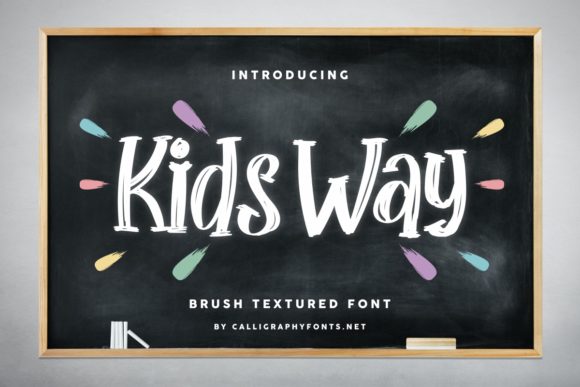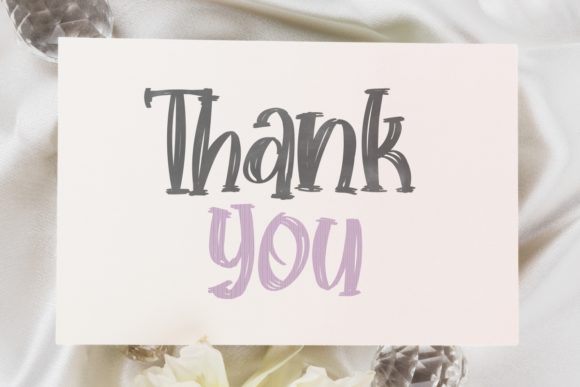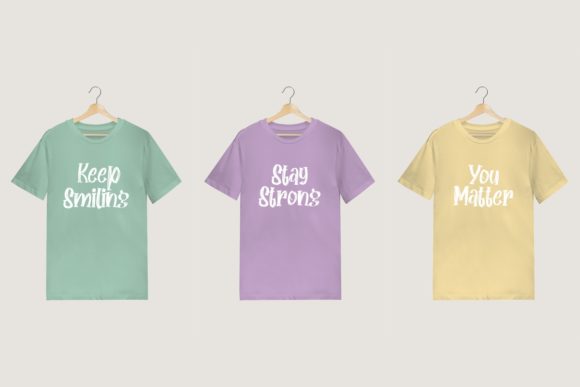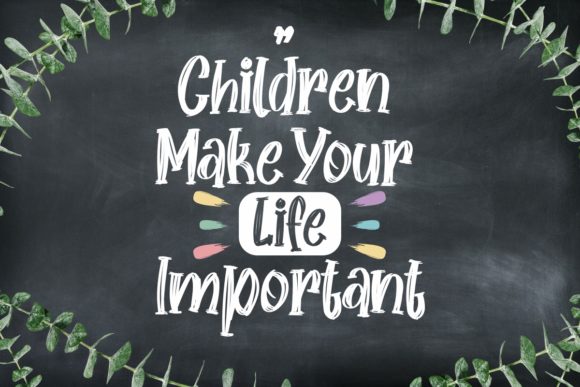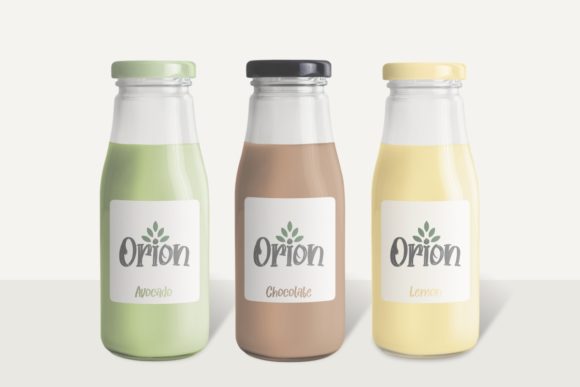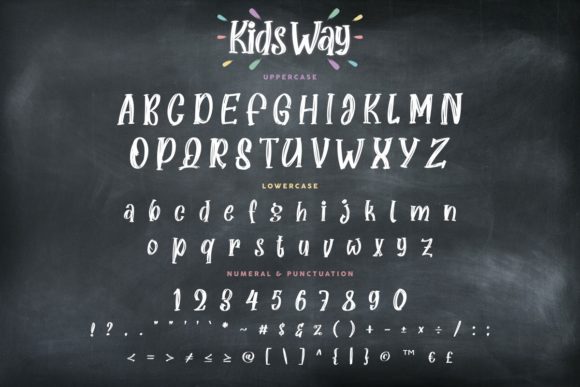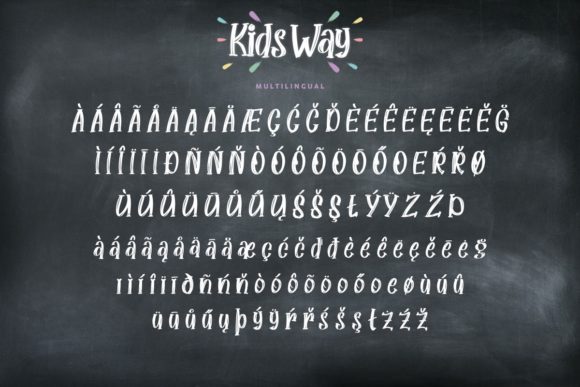
Kids Way Font
About Kids Way Font
Kids Way is a fun script font. It features a cheer vibe that makes it great for any children and school related project! Get creative with its unique playfulness and use it for branding, logo, stationery, business card, signage, flyers and more!